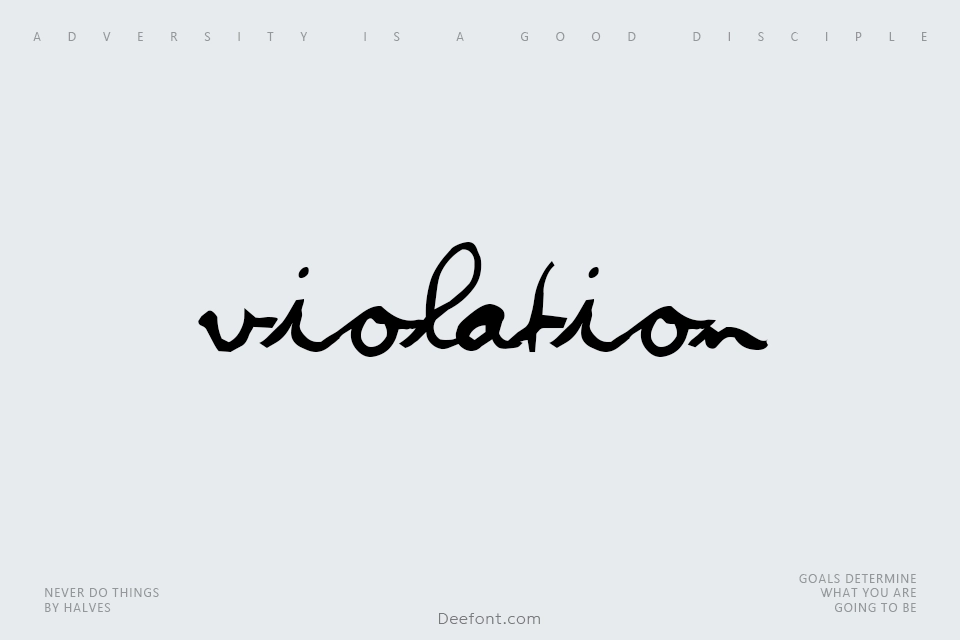
Violation Font
Violation is a dynamic and expressive handwritten script font characterized by fluid and organic letterforms with varied stroke thickness. Designed by Eric Oehler based on script writing by Anton Corbijn, this typeface features a lively, spontaneous appearance perfect for creative projects requiring personal character. With consistent styling across uppercase and lowercase letters and a slight slant that enhances its casual, informal feel, Violation is ideal for invitations, greeting cards, logos, and creative branding applications where legibility meets artistic expression.